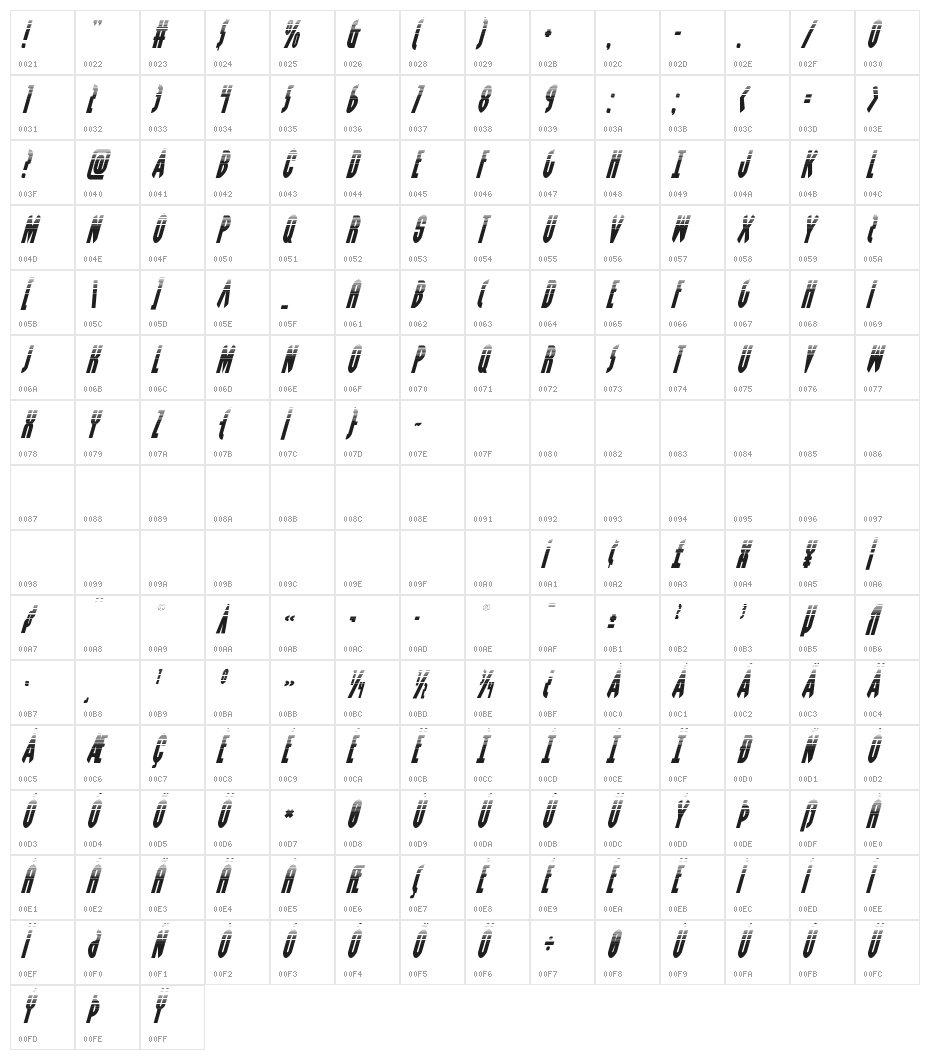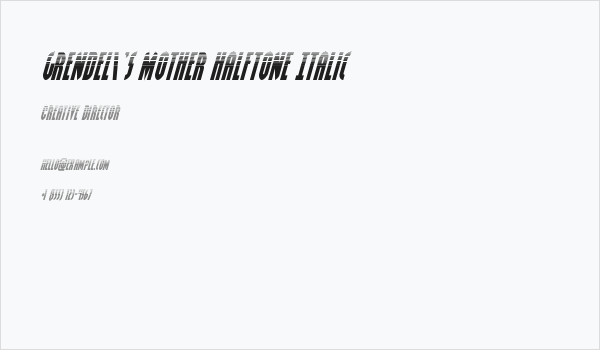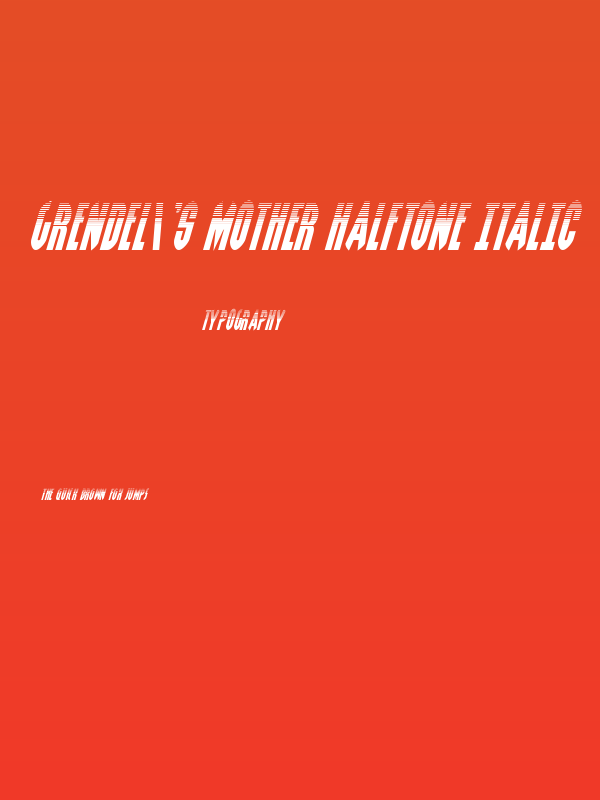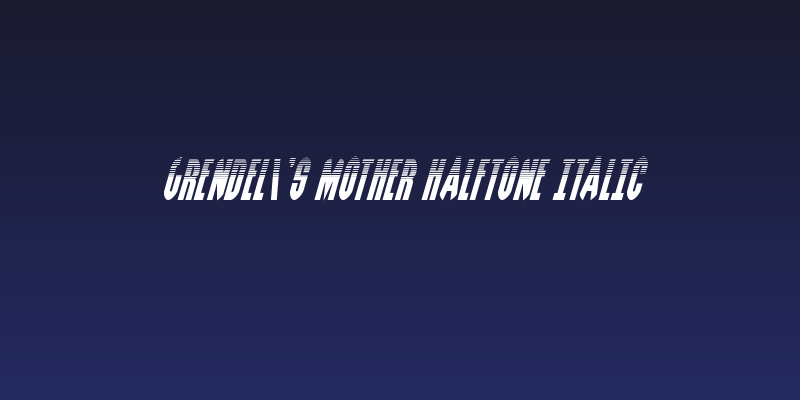
Grendel's Mother Halftone Italic Font
Grendel's Mother Halftone Italic Description
This font features a bold and dynamic style with a distinct halftone effect that gives it a unique, textured appearance. The italicized letters are slanted, adding a sense of motion and urgency. The characters are tightly spaced, enhancing the compact and impactful look. The high contrast between the thick and thin strokes further emphasizes the boldness of the design. This font is particularly eye-catching and would stand out in any setting.
| Proposed Projects | Ideal for posters, headlines, and branding projects that require a striking and modern aesthetic. |